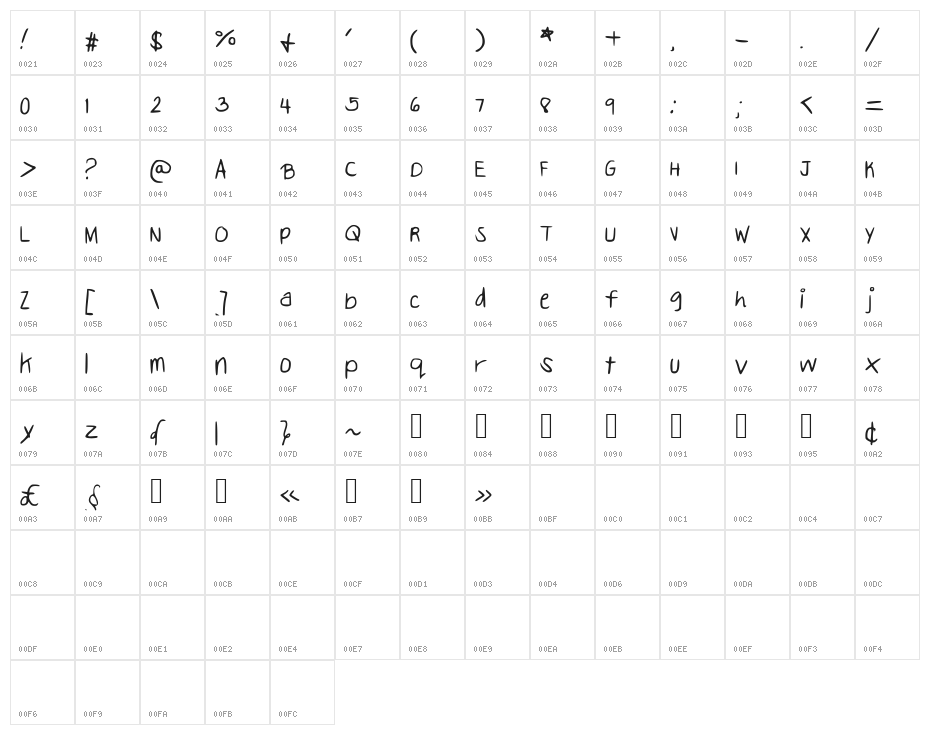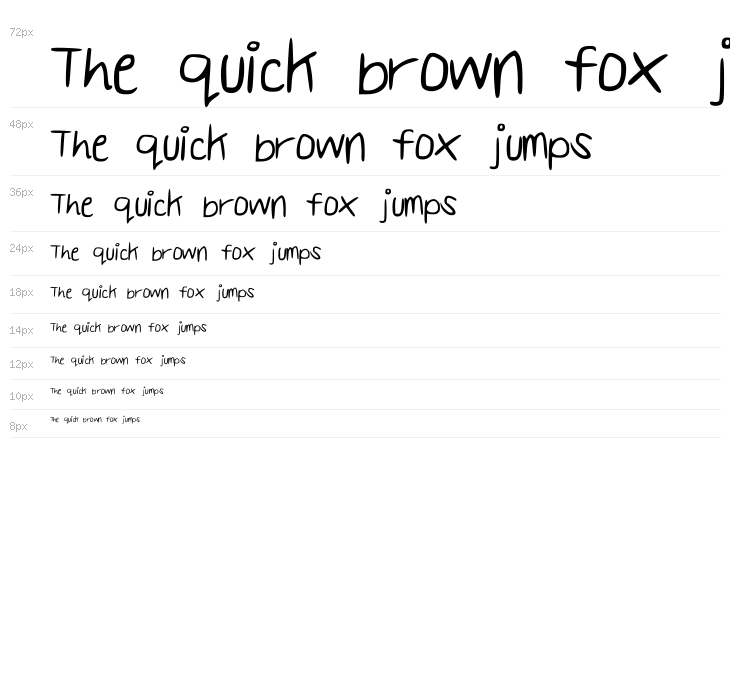
ErikaGolez Font
ErikaGolez Description
This font features a playful and informal handwritten style, characterized by its rounded and slightly irregular letterforms. The uppercase letters are bold and prominent, while the lowercase letters maintain a consistent flow with a casual flair. The numerals are clear and legible, matching the overall whimsical aesthetic. Special characters are creatively designed, adding to the font's unique personality. The strokes are consistent in width, providing a harmonious look across all characters.